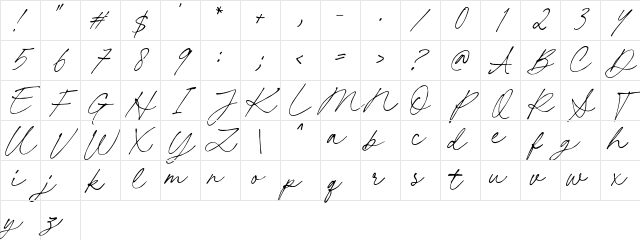
Complete Claire Palmer Demo Script Regular glyph index. Displaying only characters natively supported by Claire Palmer Demo Script Regular font.
Claire Palmer Demo Script flows with the natural rhythm of handwritten lettering, making it ideal for designs that call for warmth and personal expression.
Font Pairing: Combine Claire Palmer Demo Script with a simple geometric sans for maximum contrast - the tension between flowing curves and clean structure is a classic typographic pairing.
Pro Tip: Use Claire Palmer Demo Script for short runs of text - names, titles, or taglines. Extended body copy in script faces tires the eye quickly.